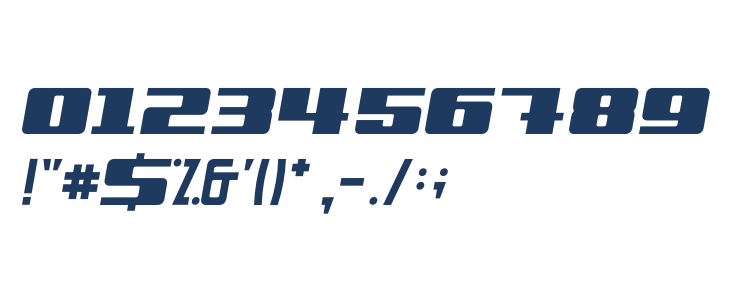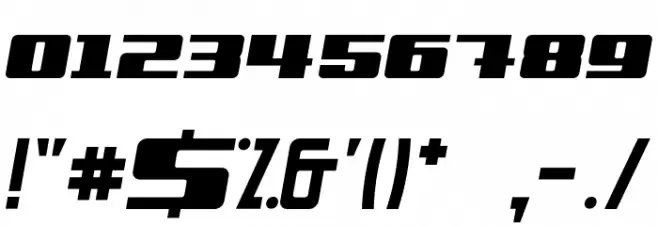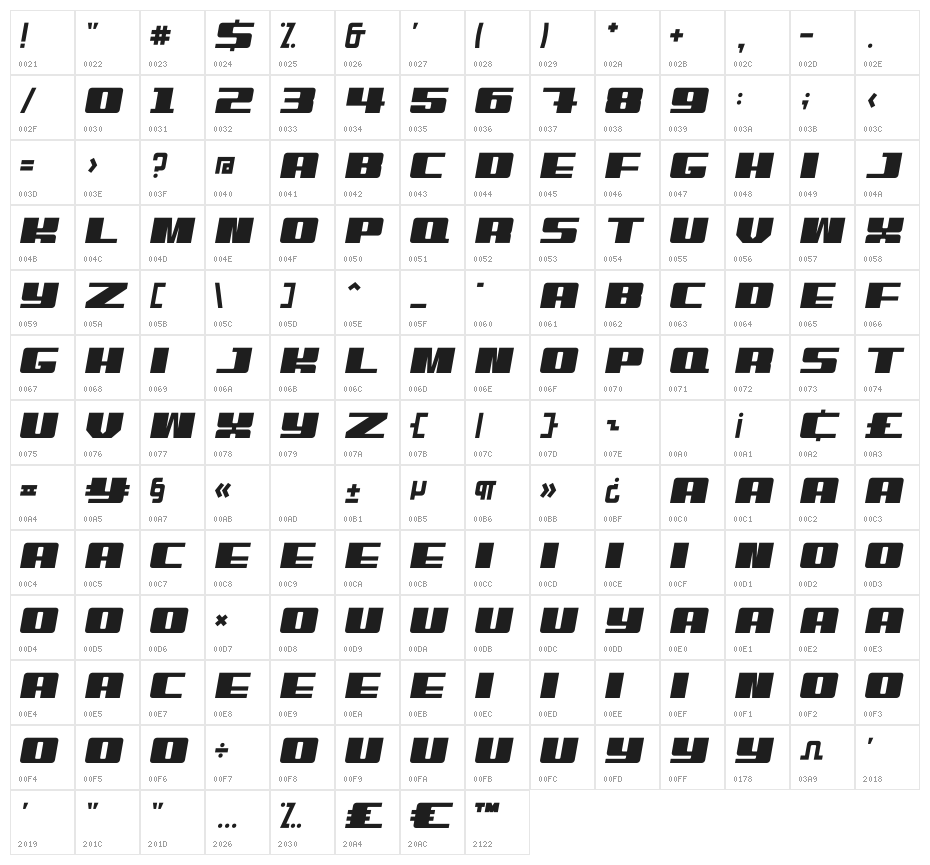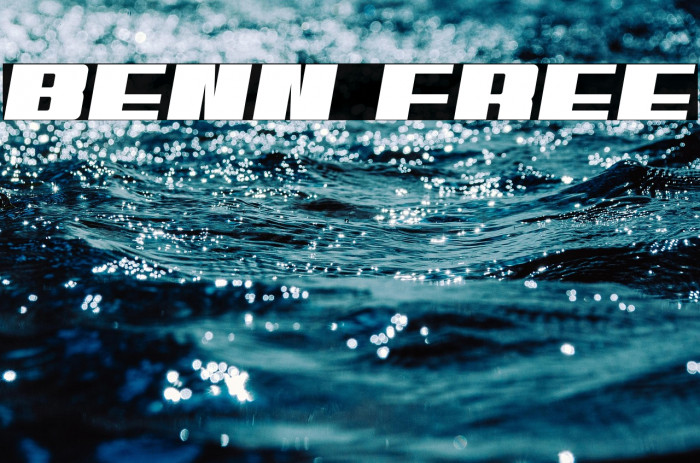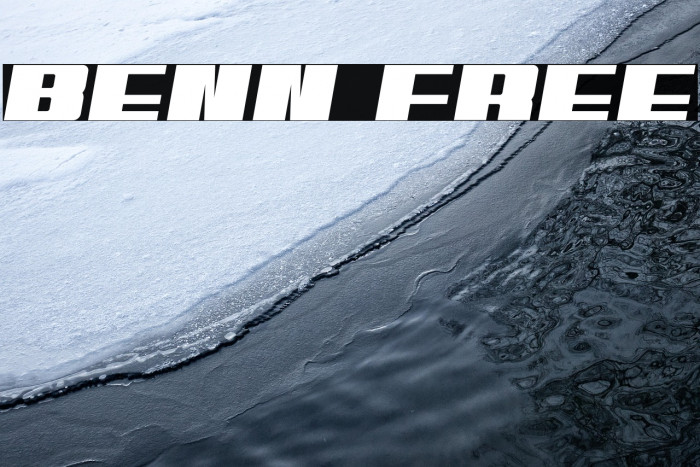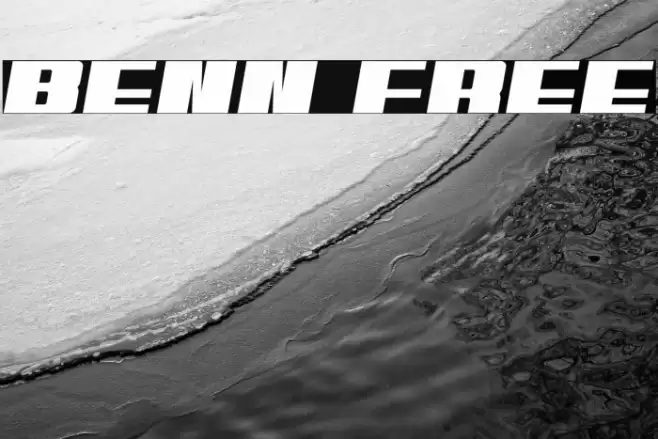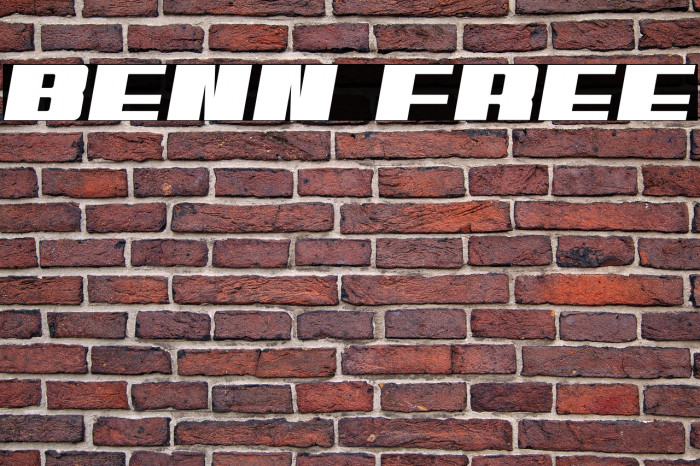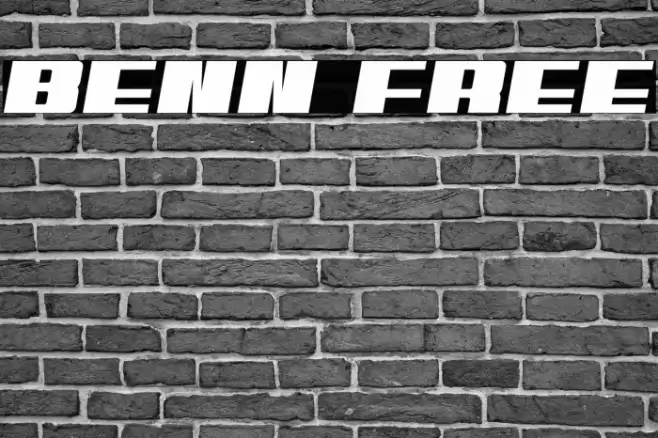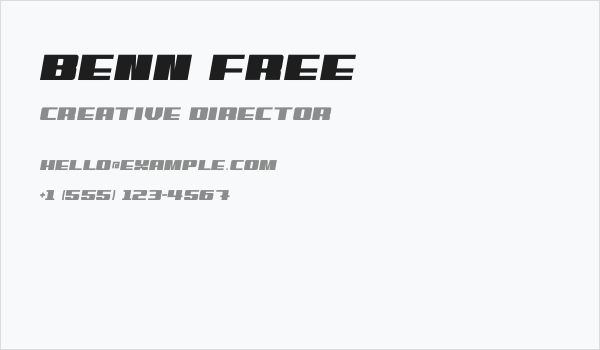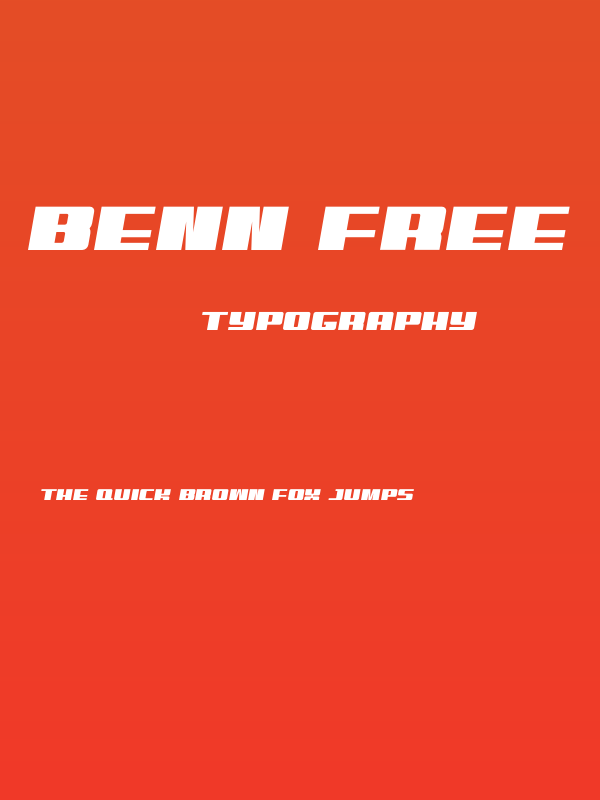
Benn Free Font
Benn Free Description
This font features a bold and dynamic design with a strong presence. The characters are slightly slanted, giving a sense of movement and speed. The strokes are thick and consistent, creating a powerful visual impact. The geometric shapes and sharp angles contribute to a modern and futuristic appearance. The uppercase letters are particularly striking, with a uniform height and width that enhances readability. The numbers and special characters maintain the same bold style, ensuring consistency across all text elements. This font is ideal for projects that require a strong and assertive typeface.